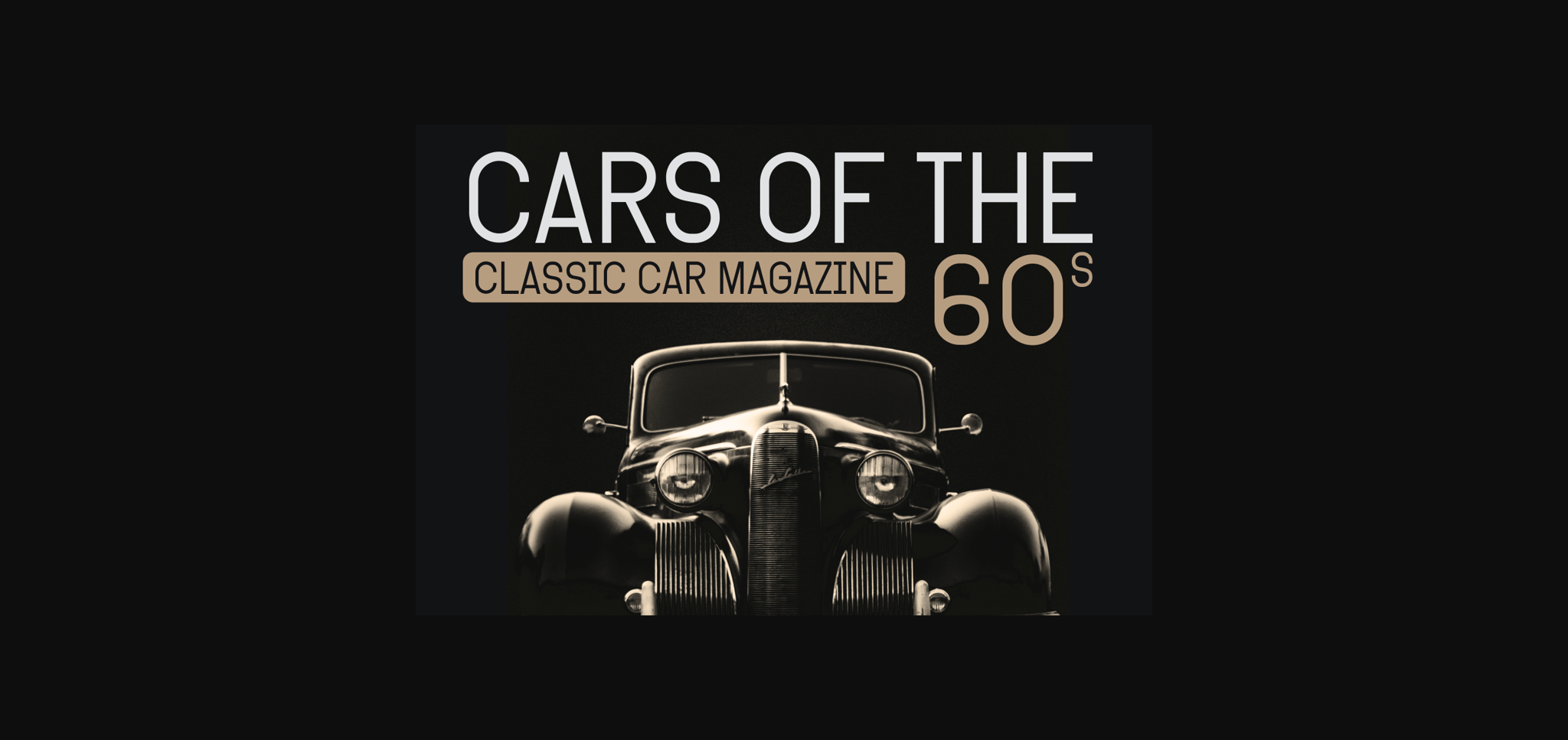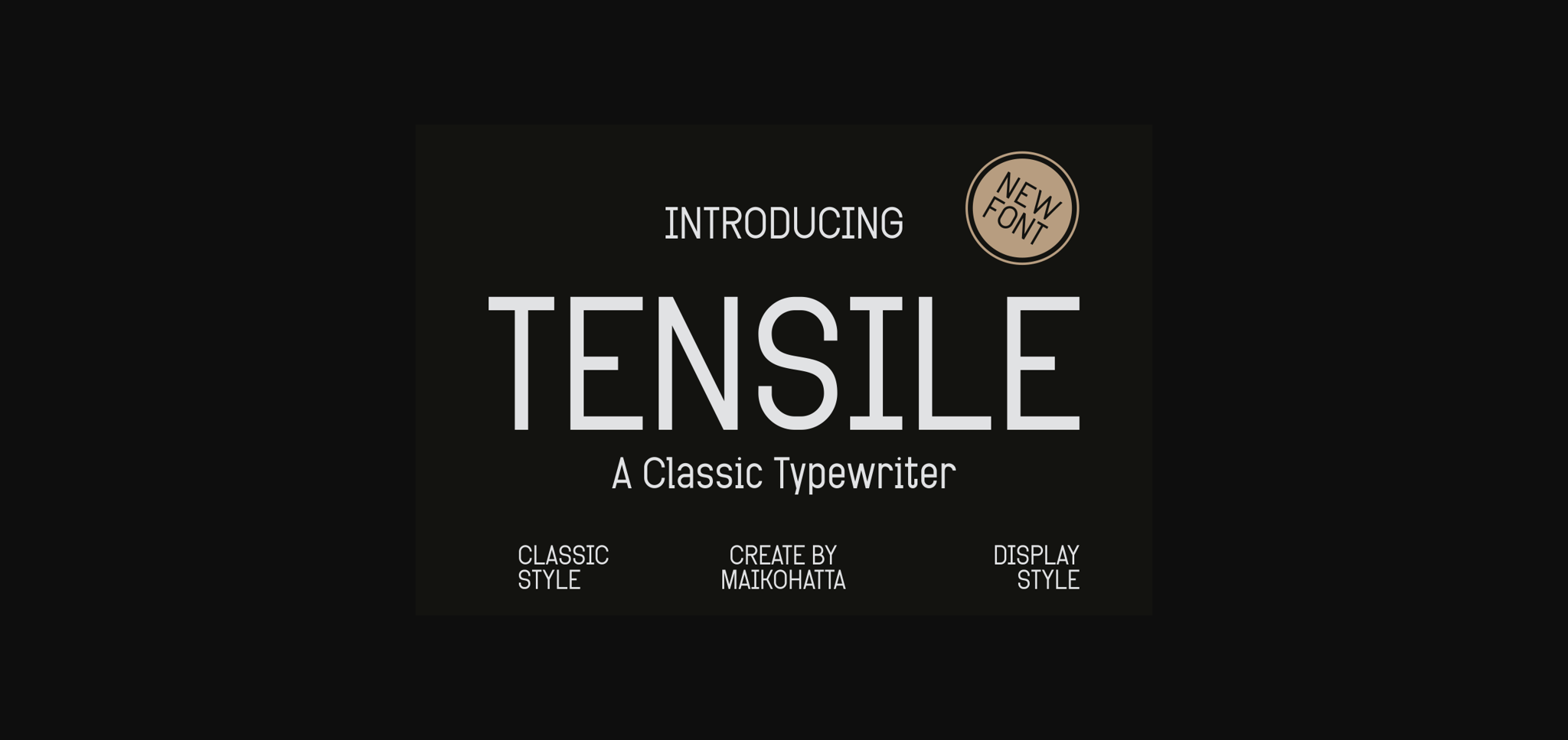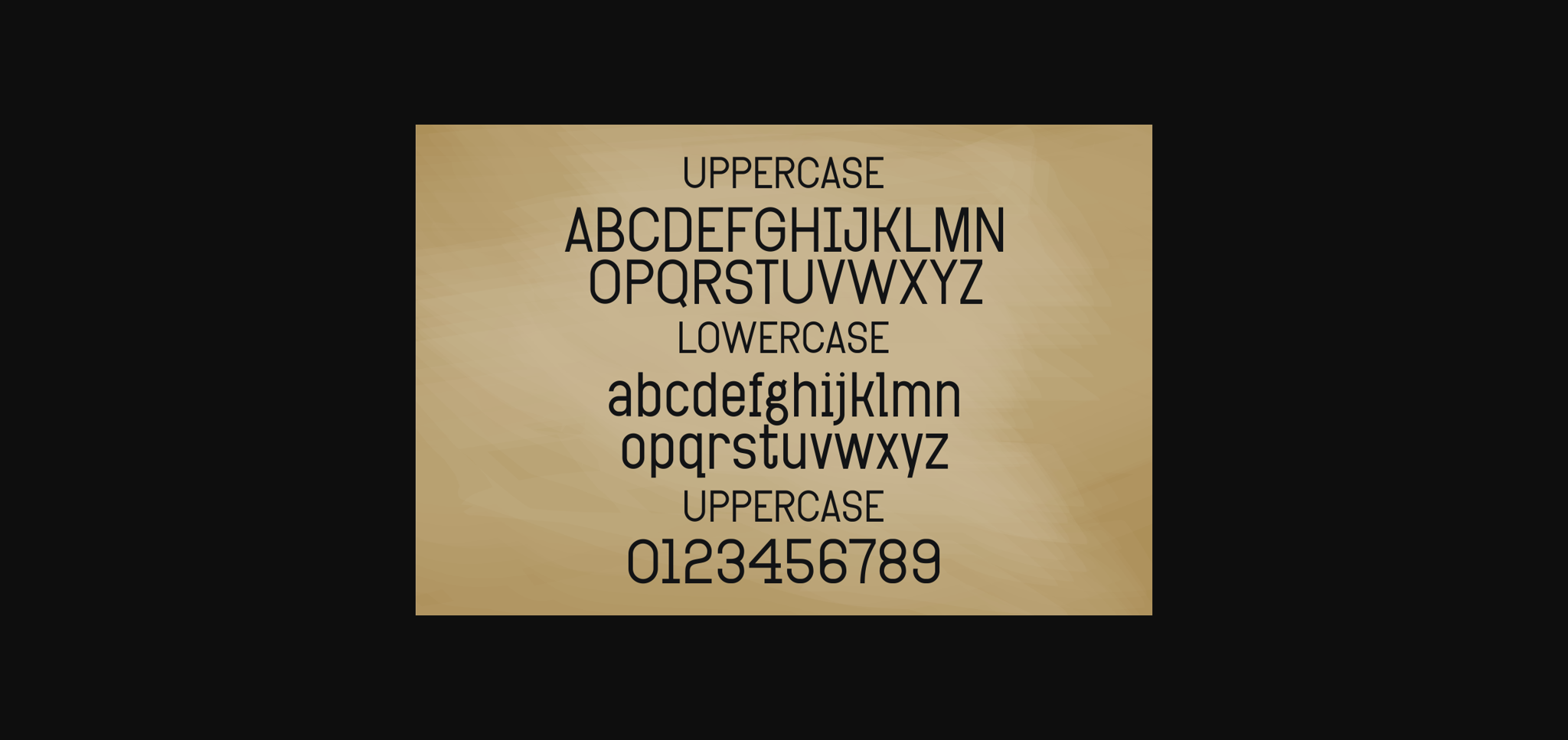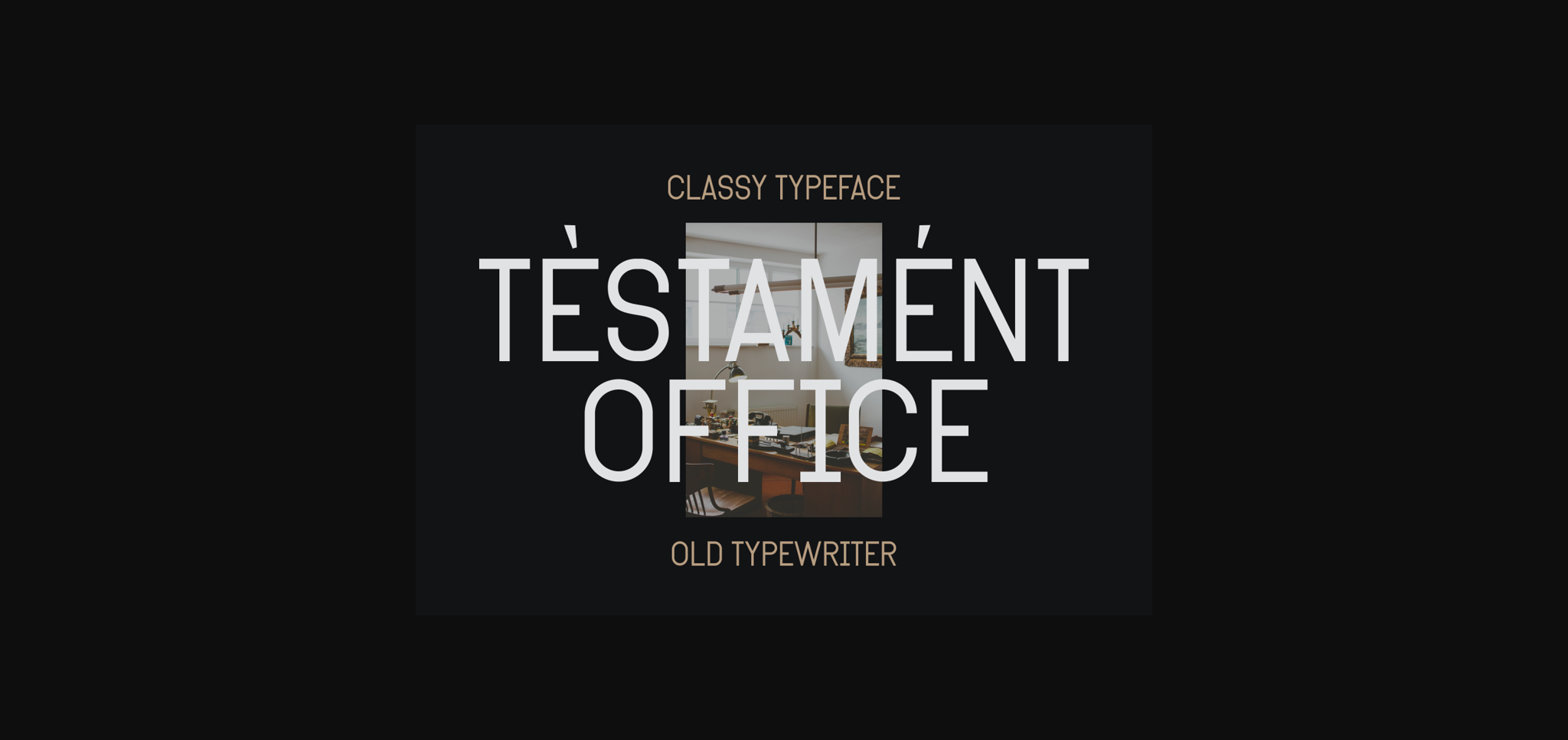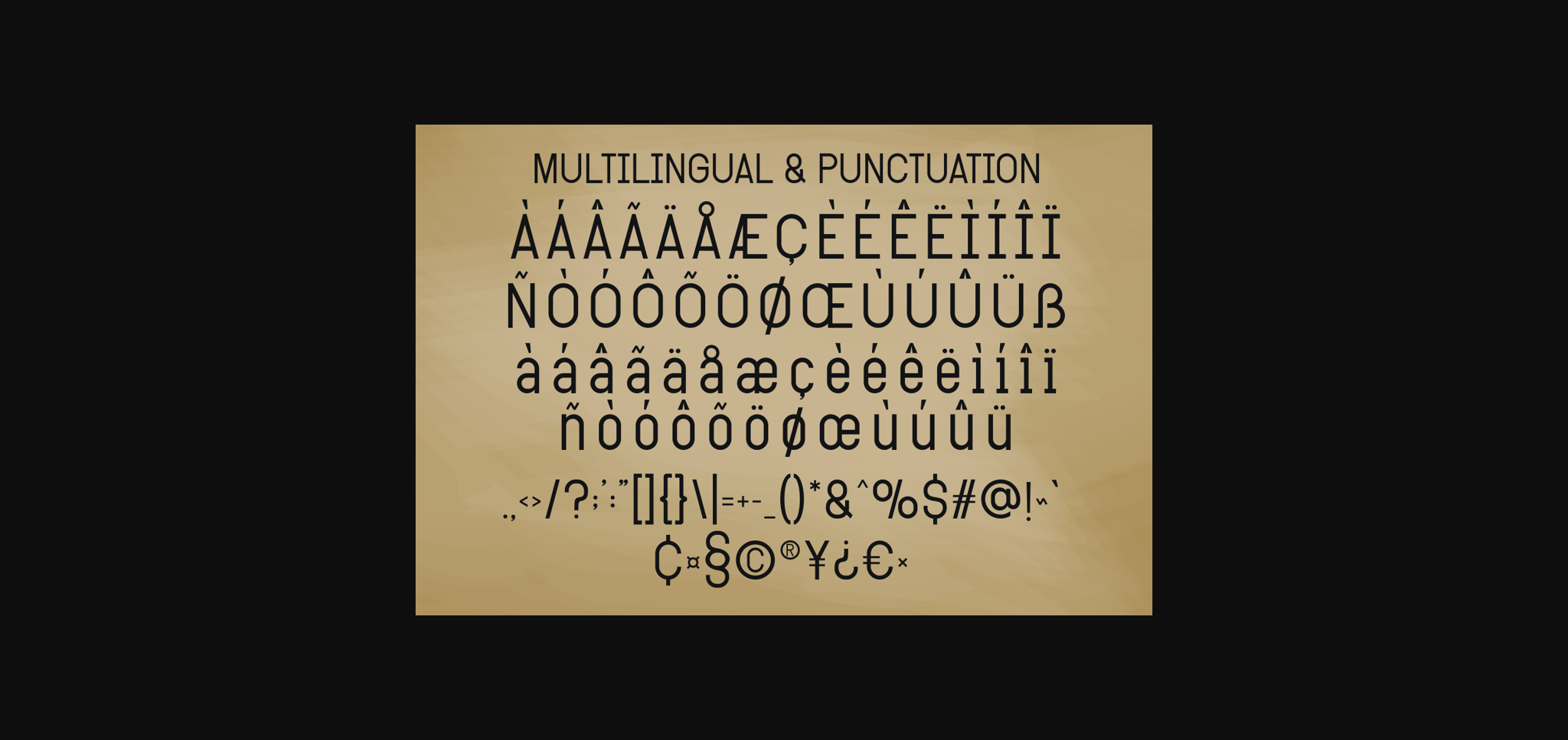
Tensile Font
About Tensile Font
This font combines traditional serif elements with the aesthetics of a typewriter, creating a captivating impression. It will bring a classic feel to any design it’s used in and create a unique appearance with a retro or vintage impression.